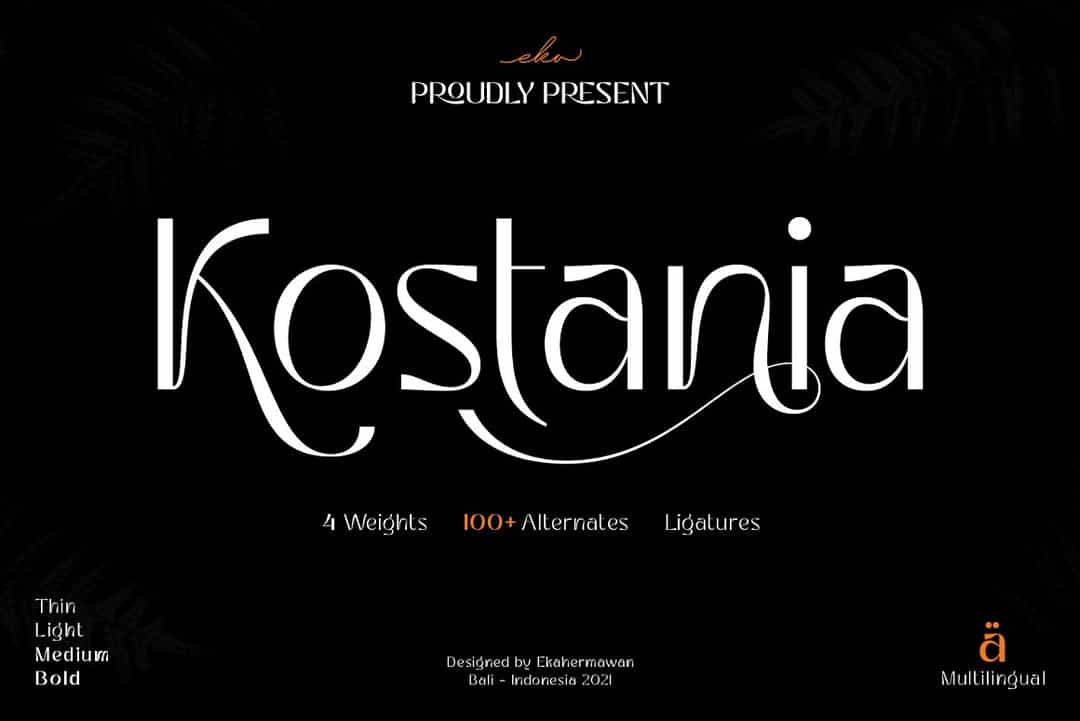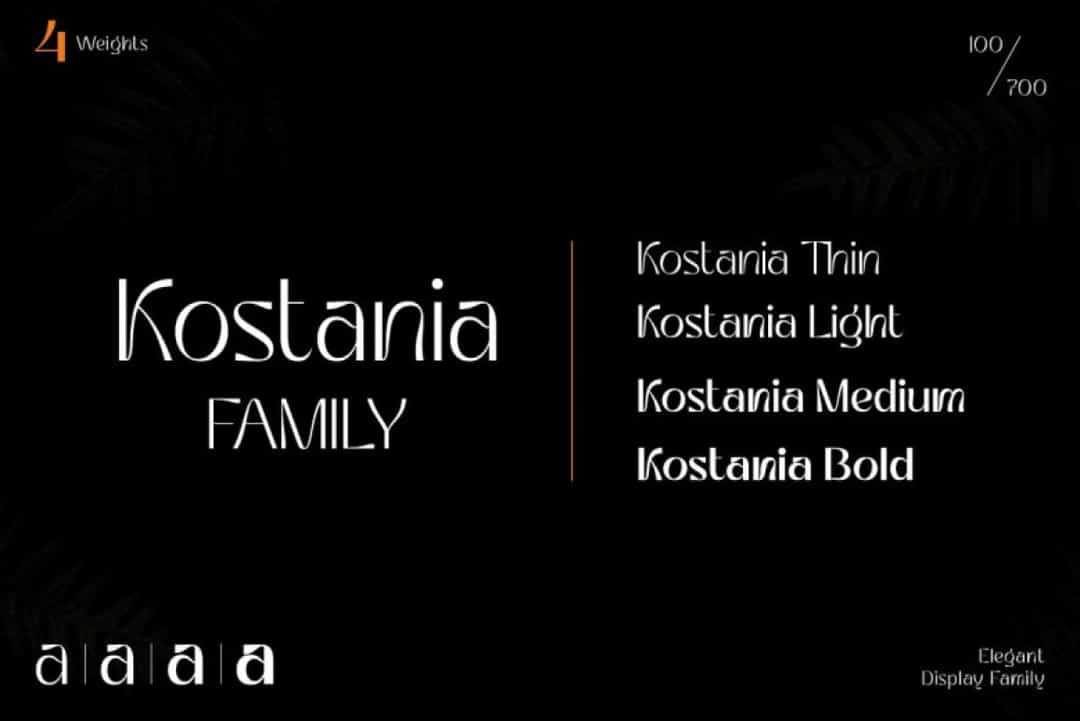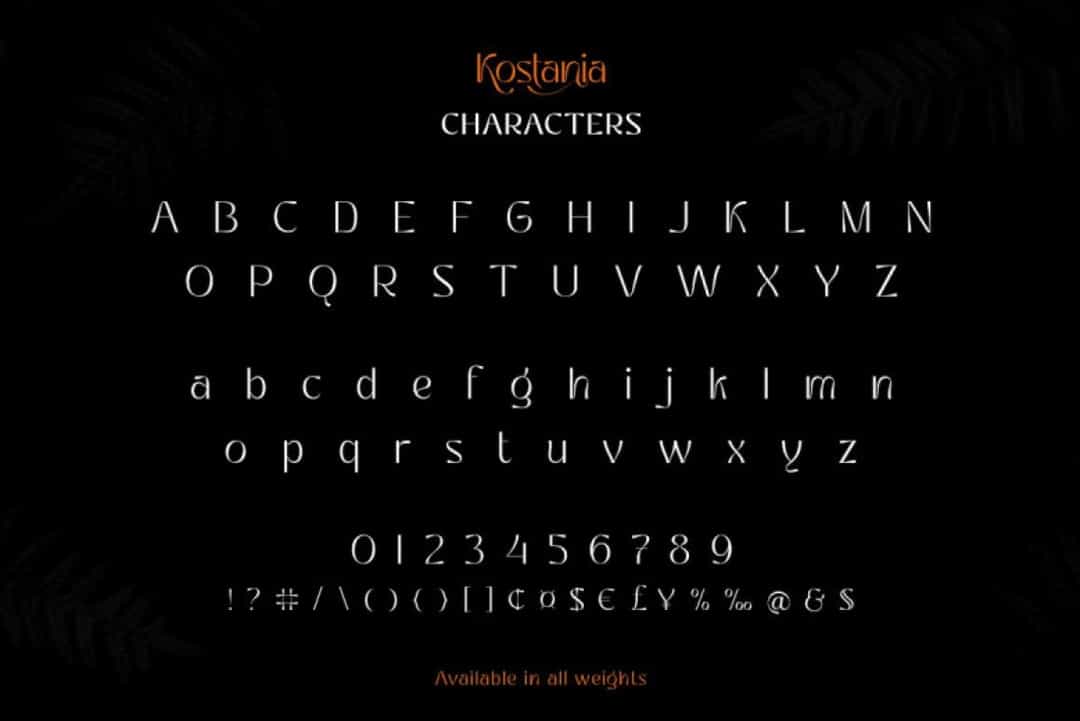
Kostania Typeface is an eye-catching, distinctive font designed for display use that comes in four weights ranging from Light to Bold. Furthermore, this design includes numerous ligatures and alternates to provide you with various design possibilities.